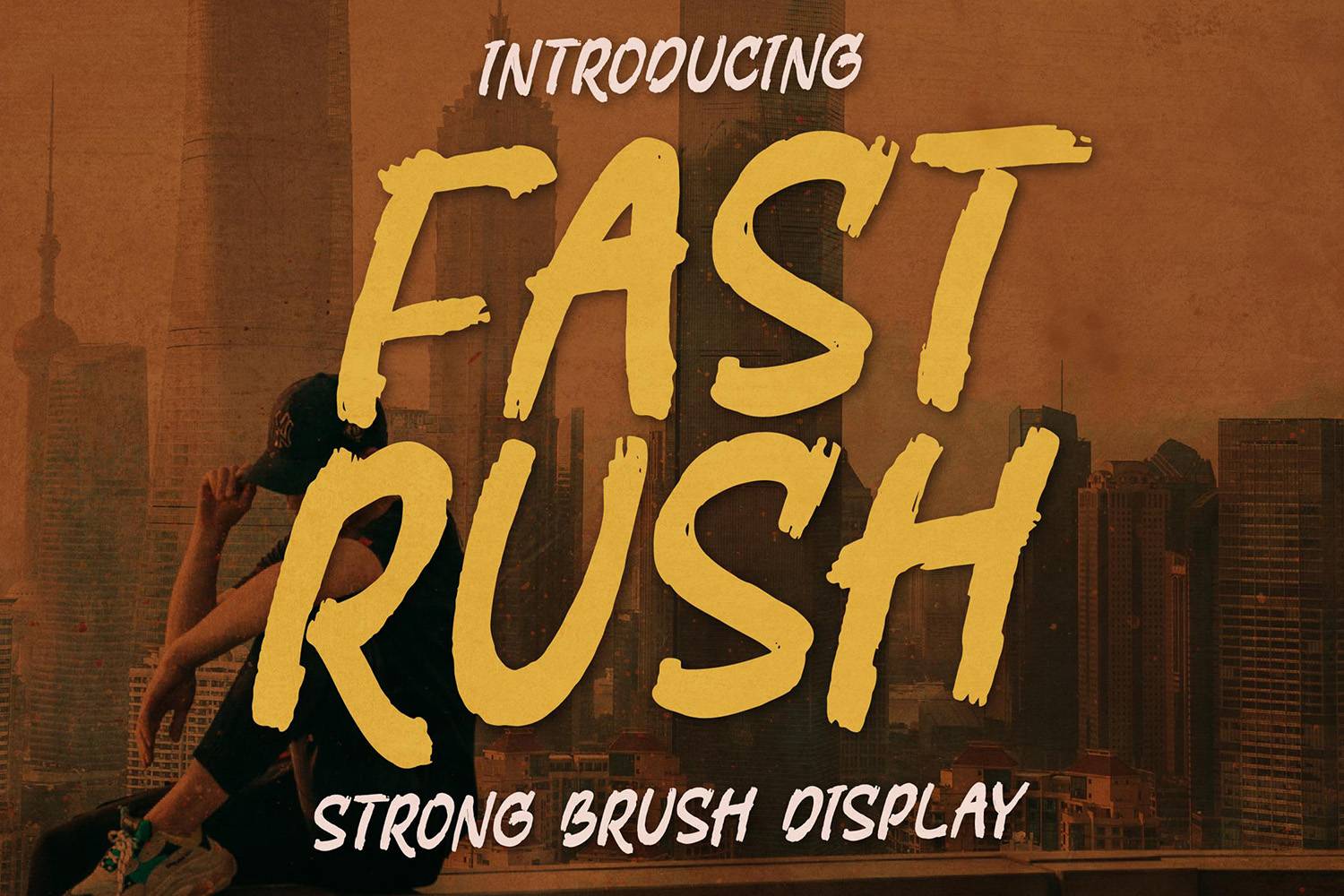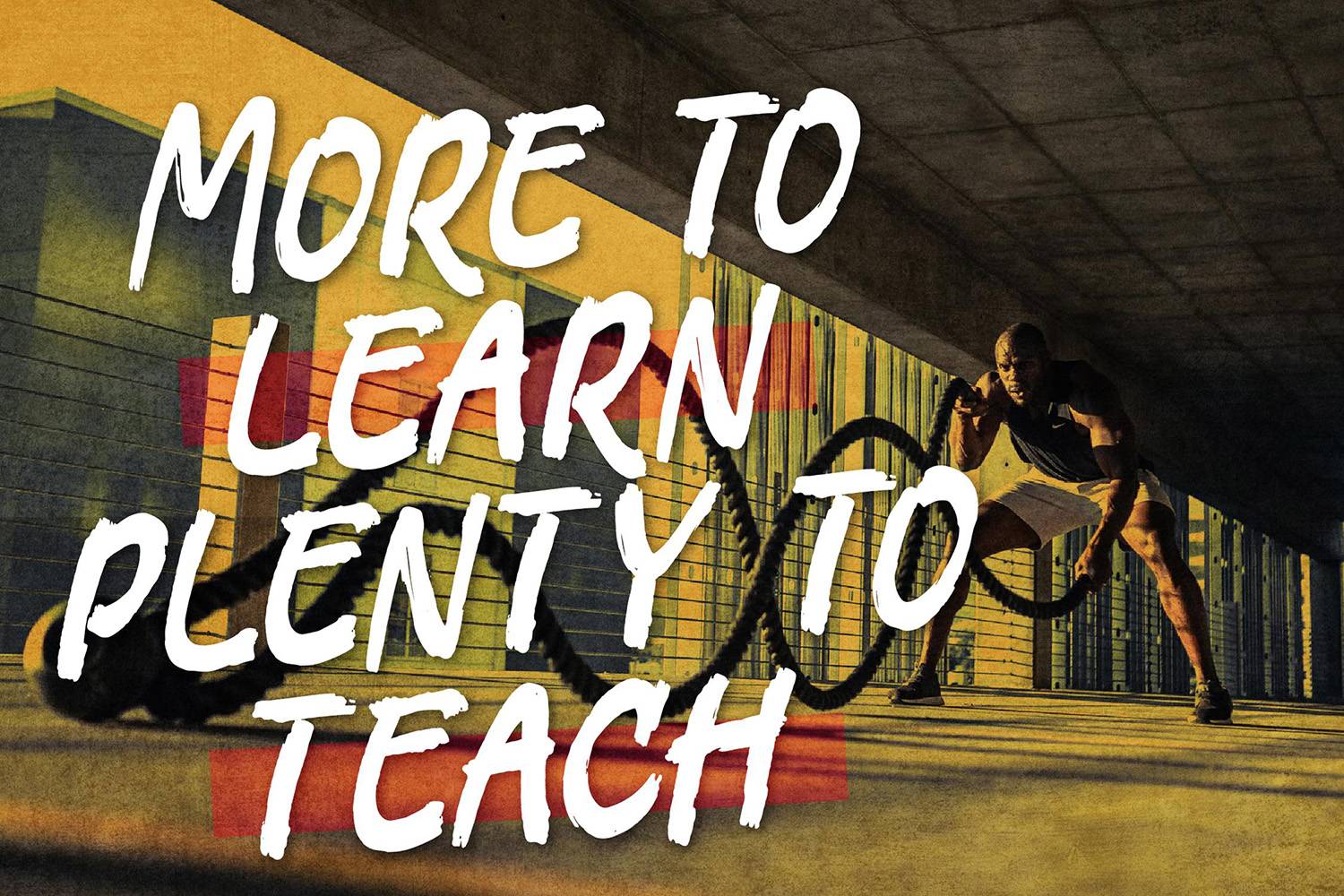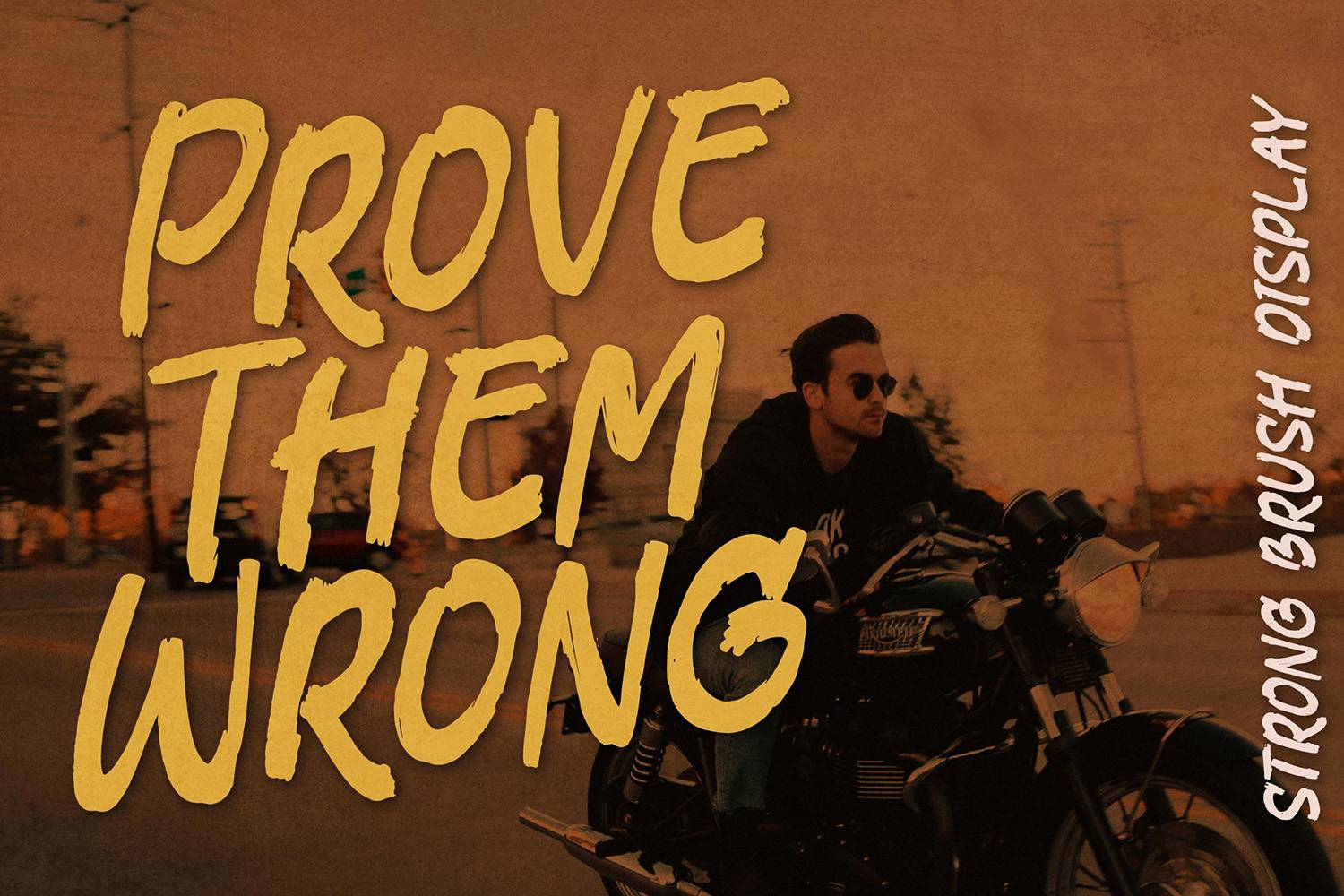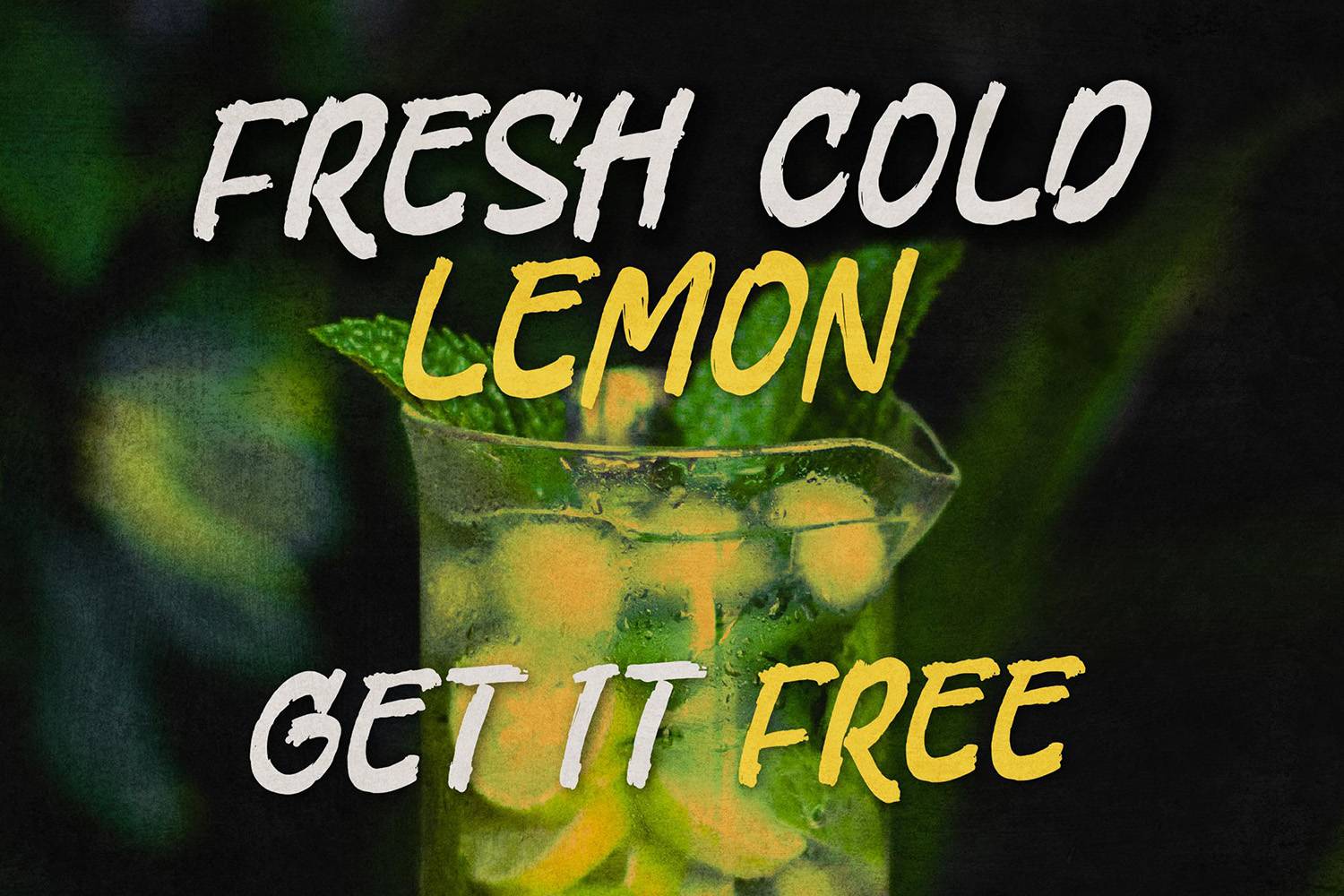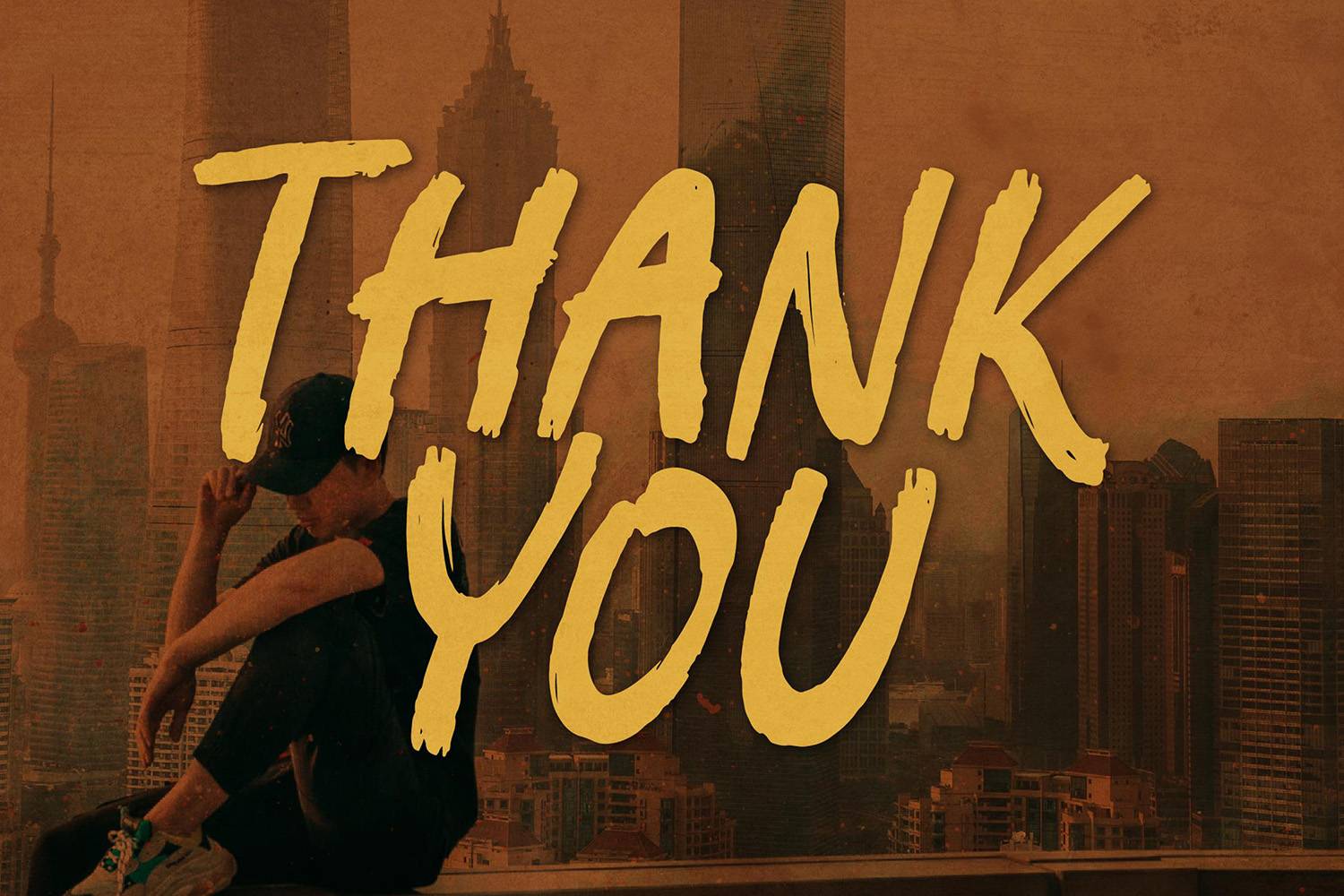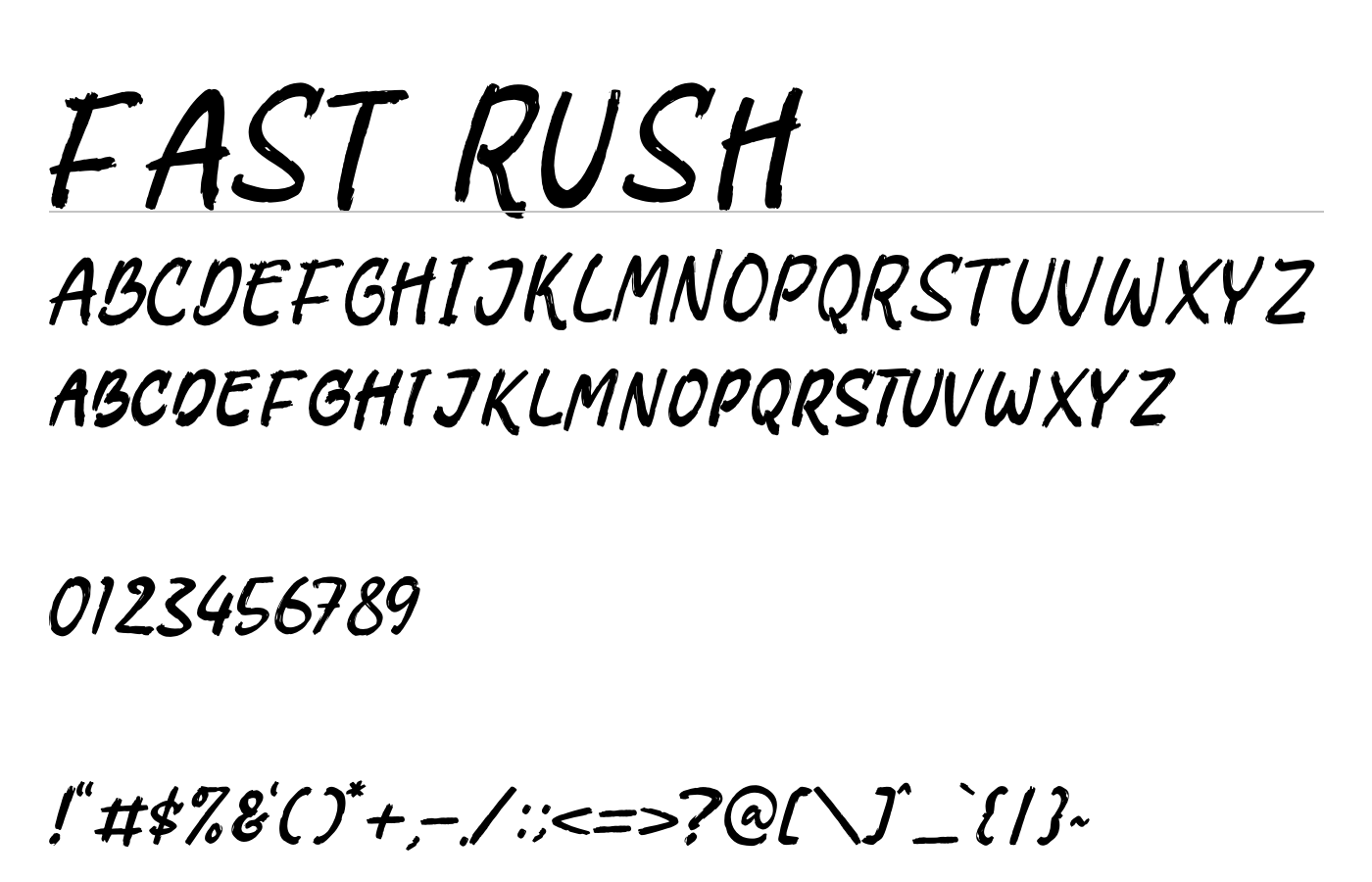
Fast Rush is a lively, brush-style handwritten font characterized by its energetic, slightly rough strokes and casual yet bold appeal. Its narrow, upright letterforms with varied stroke texture create a sense of movement and urgency, making it ideal for dynamic designs, sports branding, or youthful, expressive projects that want to convey speed and personality. This font works well for attention-grabbing headlines, logos, and packaging where a spontaneous, informal vibe is desired.
Fast Rush Font
About Fast Rush Font